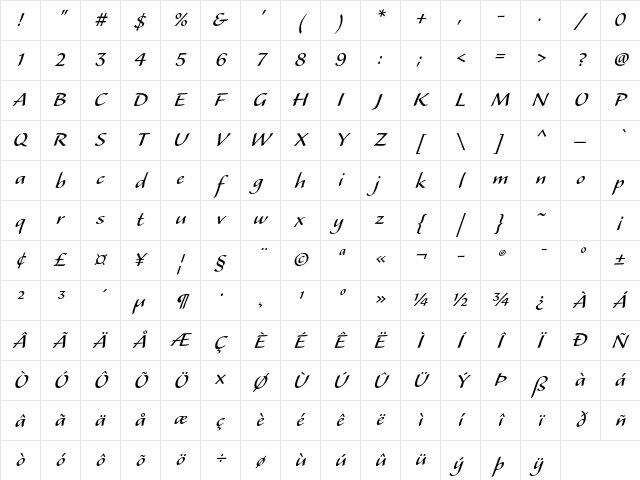
Alexa Std Regular
Designer: John Benson
Design Context for Alexa Std
Alexa Std is a composed and adaptable typeface that performs quietly and consistently across a wide range of design contexts.